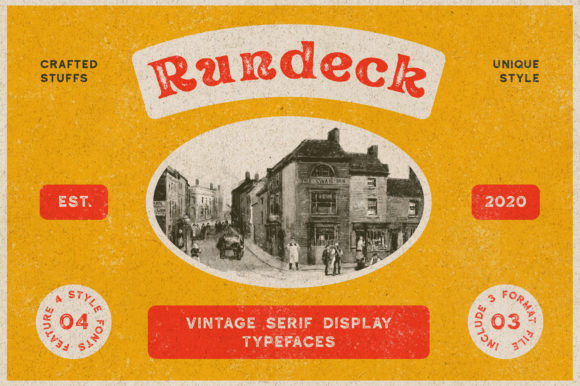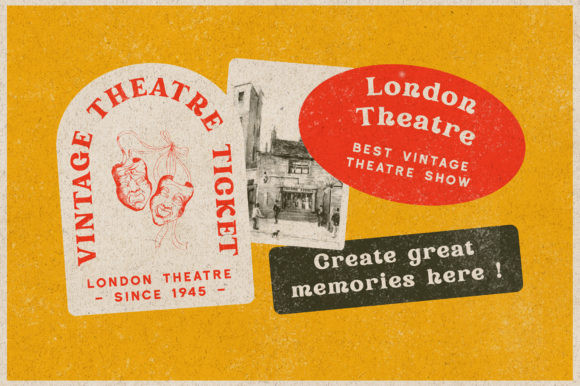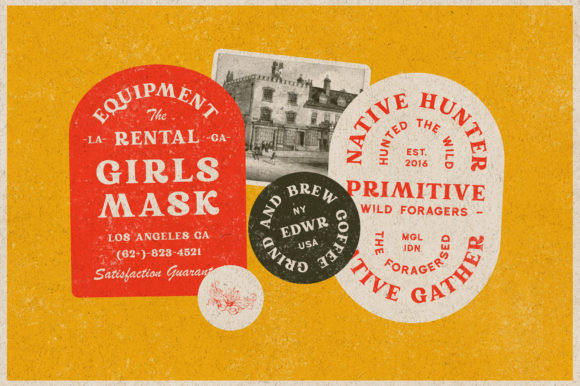
Rundeck Font
Rundeck is a serif font inspired by vintage signs and retro style labels. This makes it ideal and the perfect choice for creating unique designs like posters, logos, labels, packaging and much more!